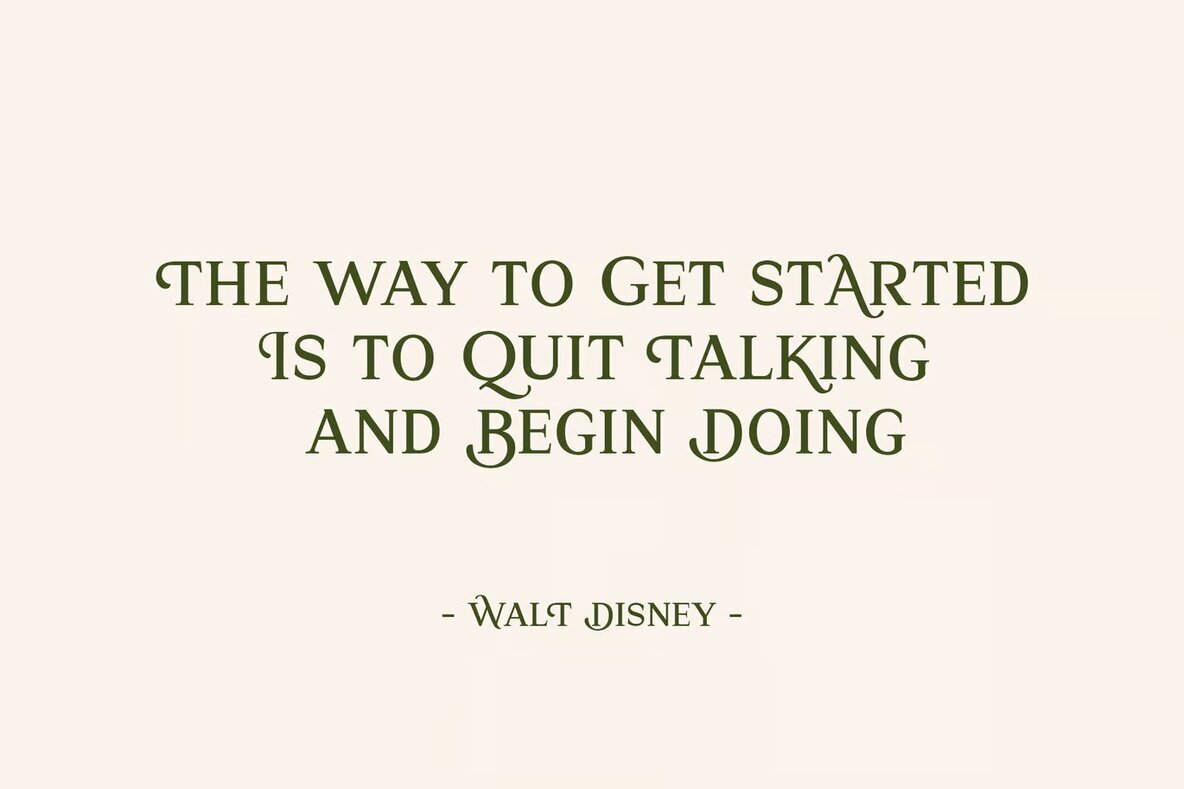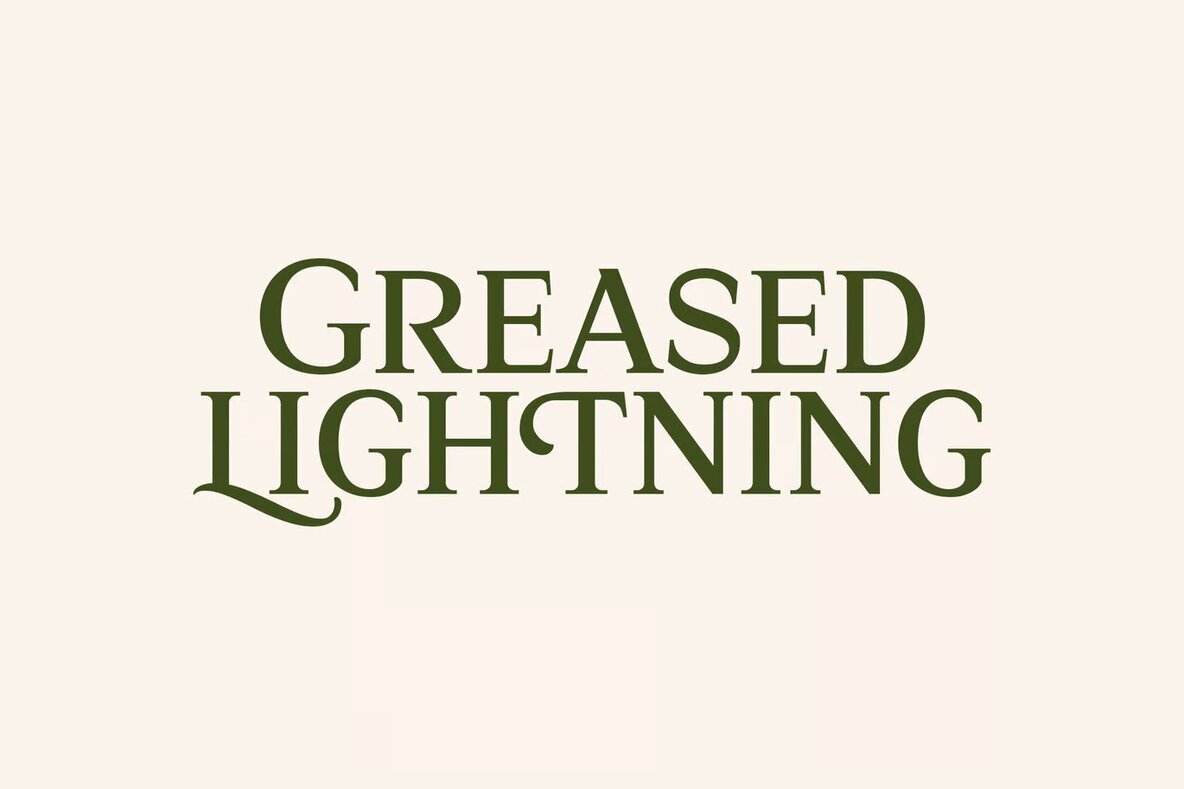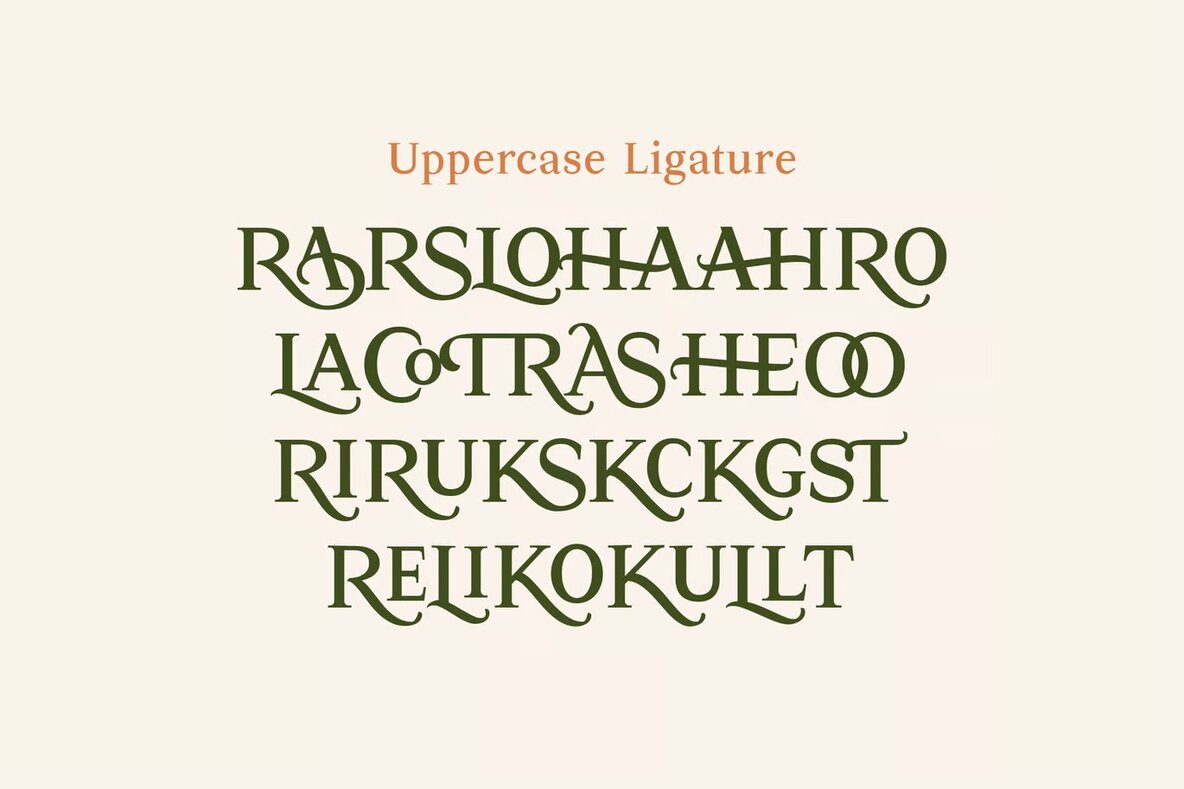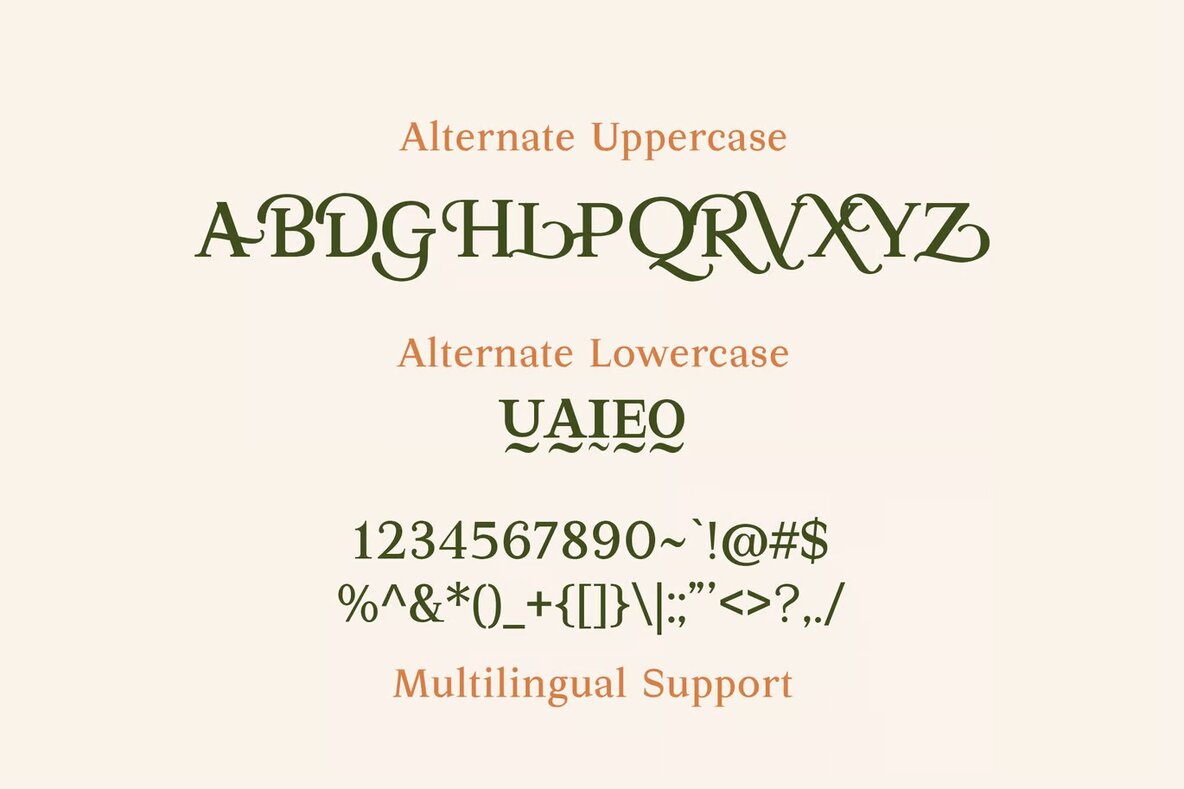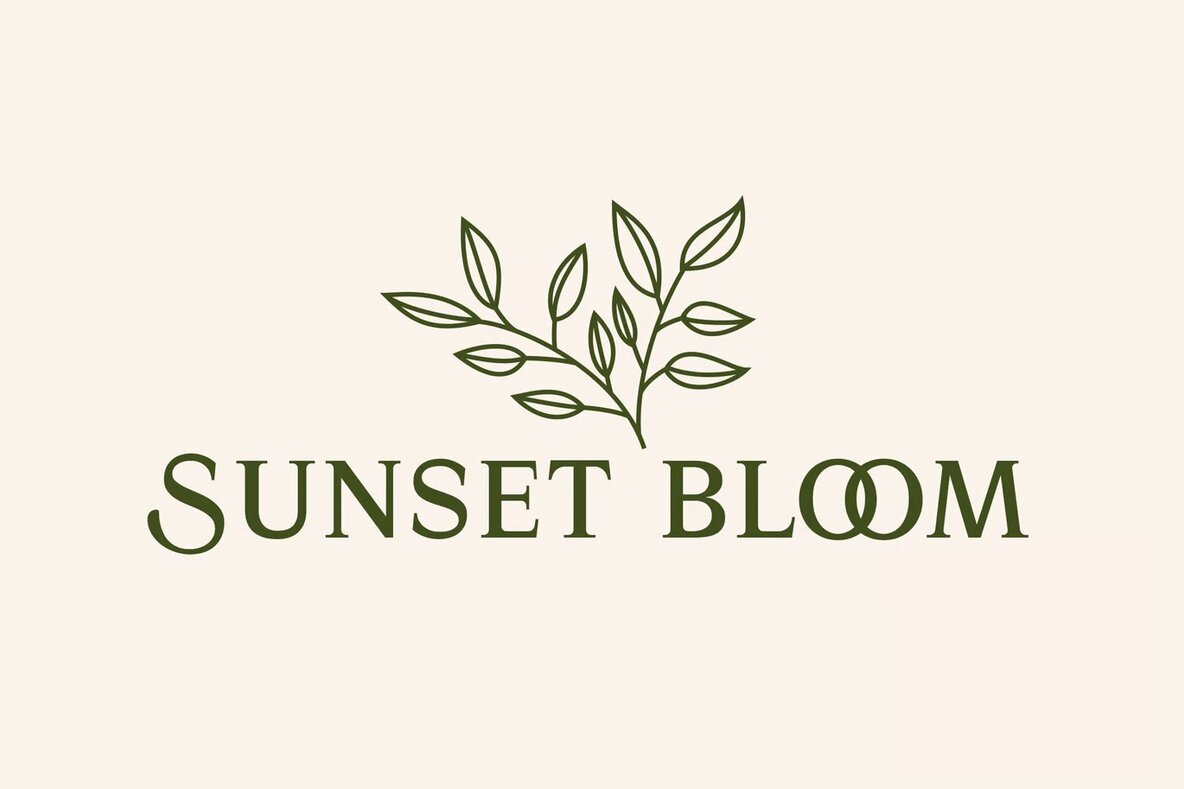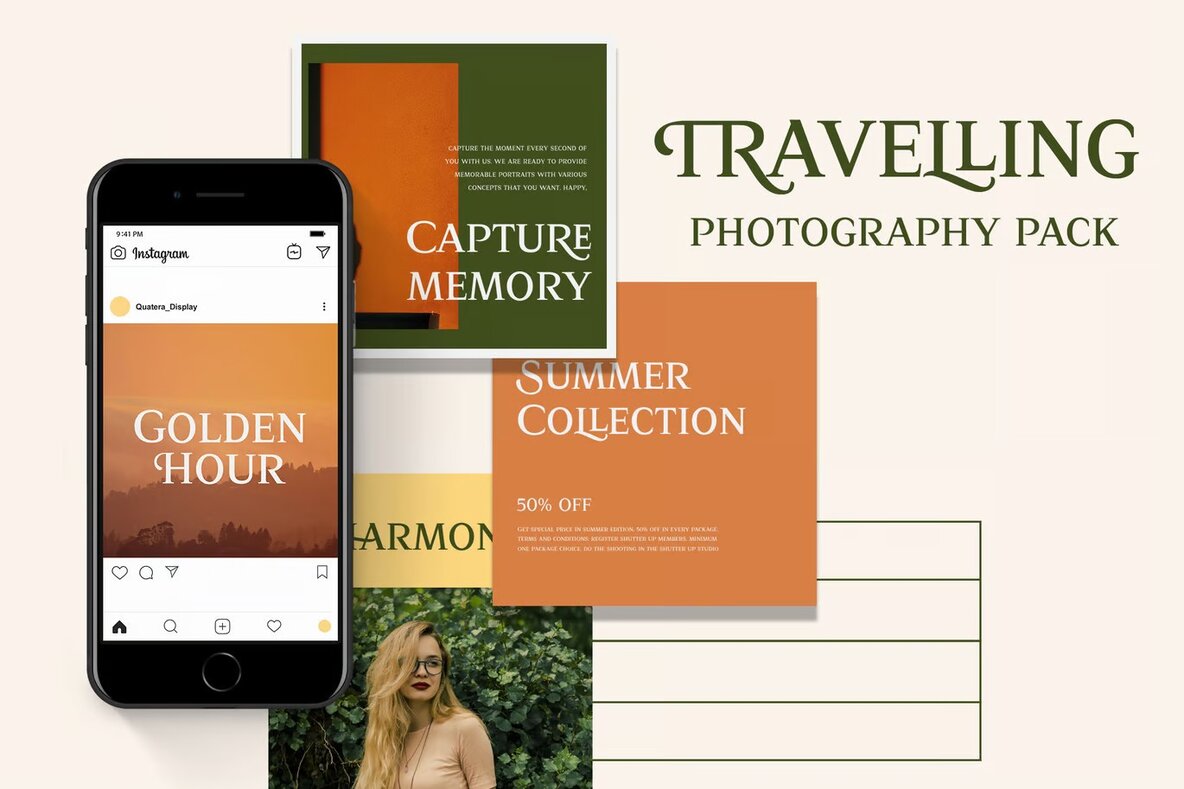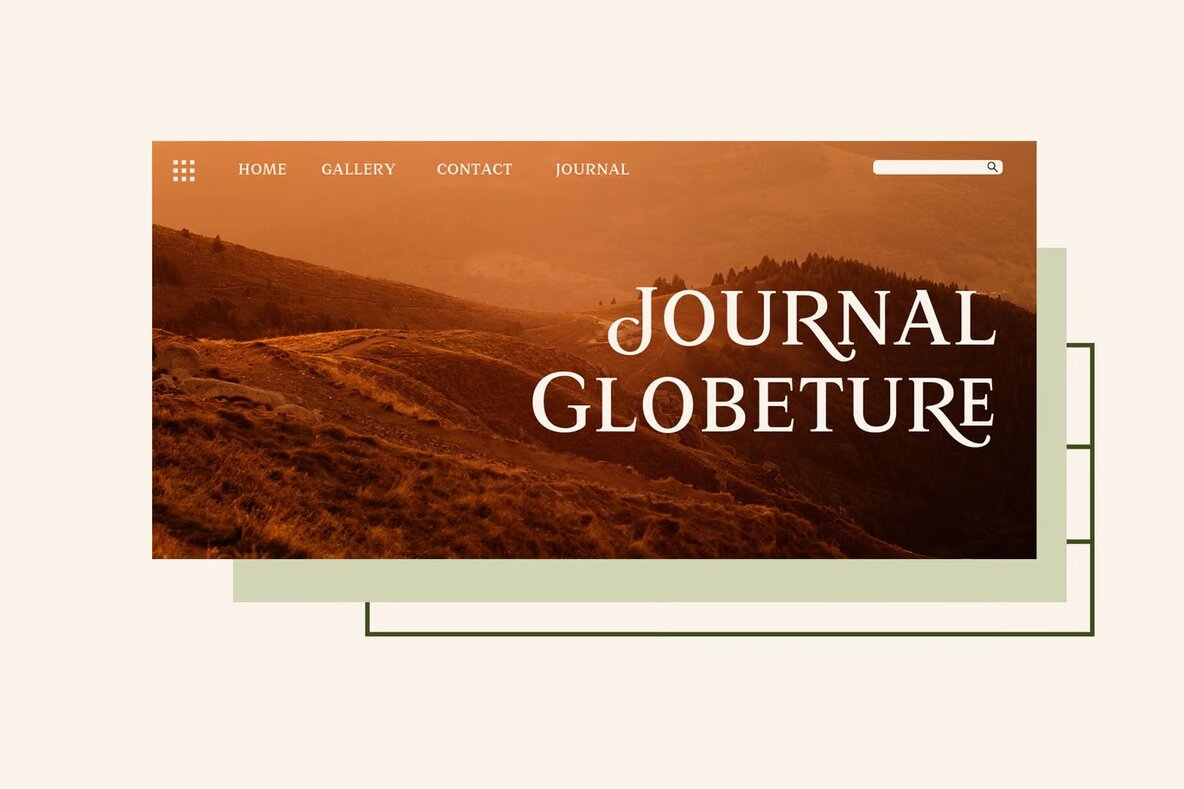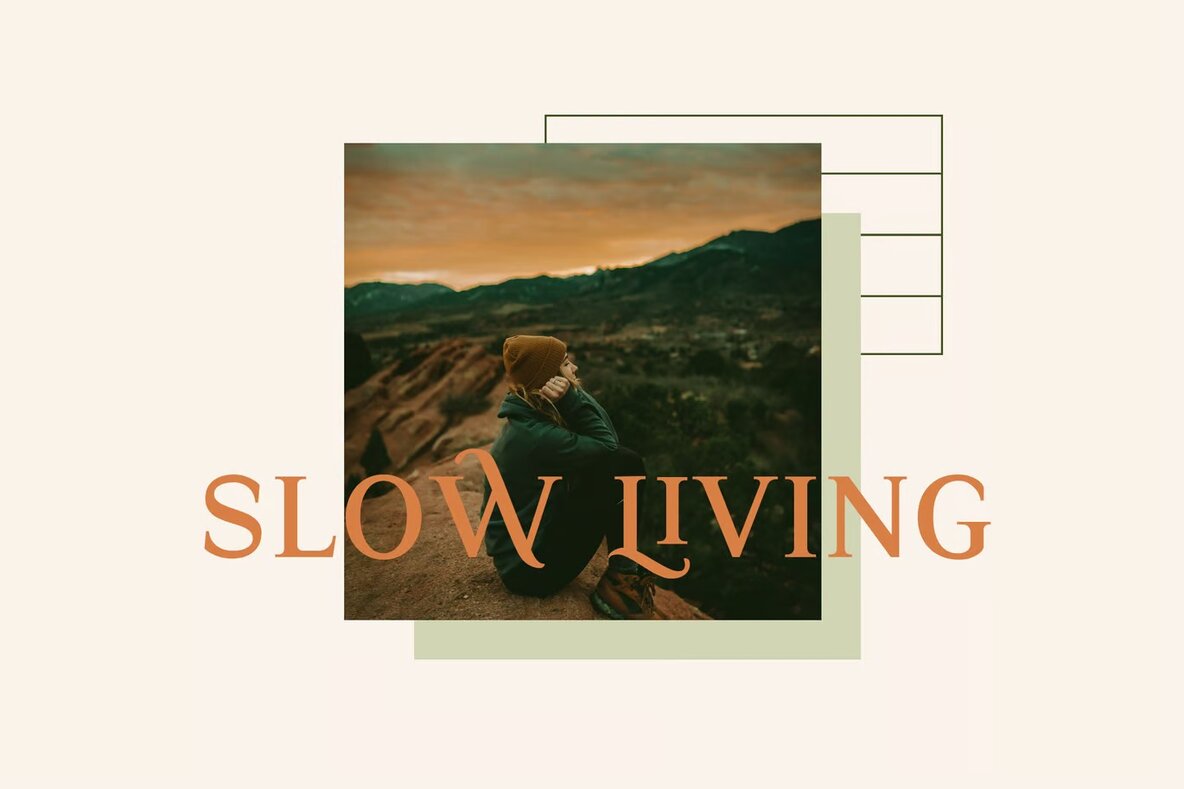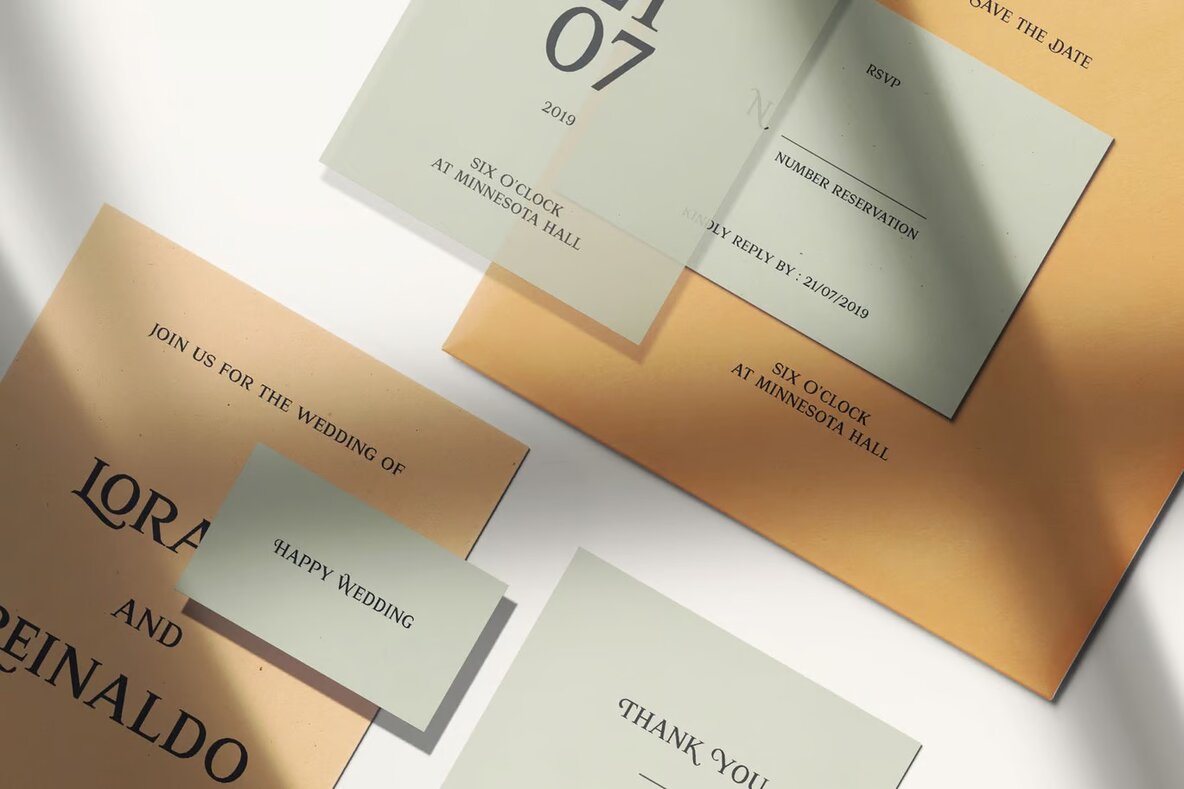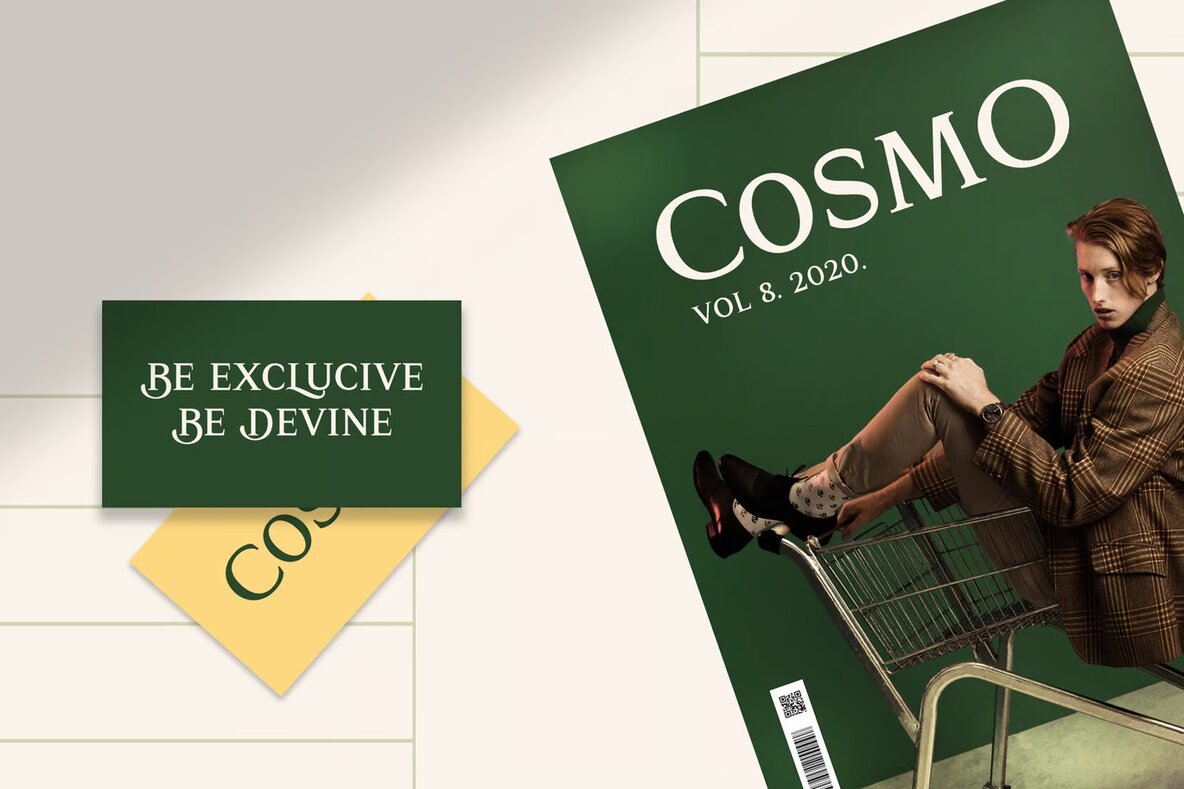
Quatera Font
Quatera Display Regular
Quatera Display Serif is designed to enhance a variety of design projects, adding a touch of sophistication and style. Ideal for luxury logos, branding projects, and editorial designs, it brings class and elegance to magazines, fashion promotions, boutique branding, and stationery. Its versatile application extends to blog designs, modern advertising, invitation cards, art quotes, home décor, book covers, and special events.
Features of Quatera include a complete set of basic and title alphabet characters (A-Z), numerals, punctuation, and a range of alternates and ligatures. Multilingual support is also included, ensuring comprehensiveness for diverse projects. This makes Quatera an invaluable asset for professionals seeking to add a refined and polished flair to their creative endeavors.